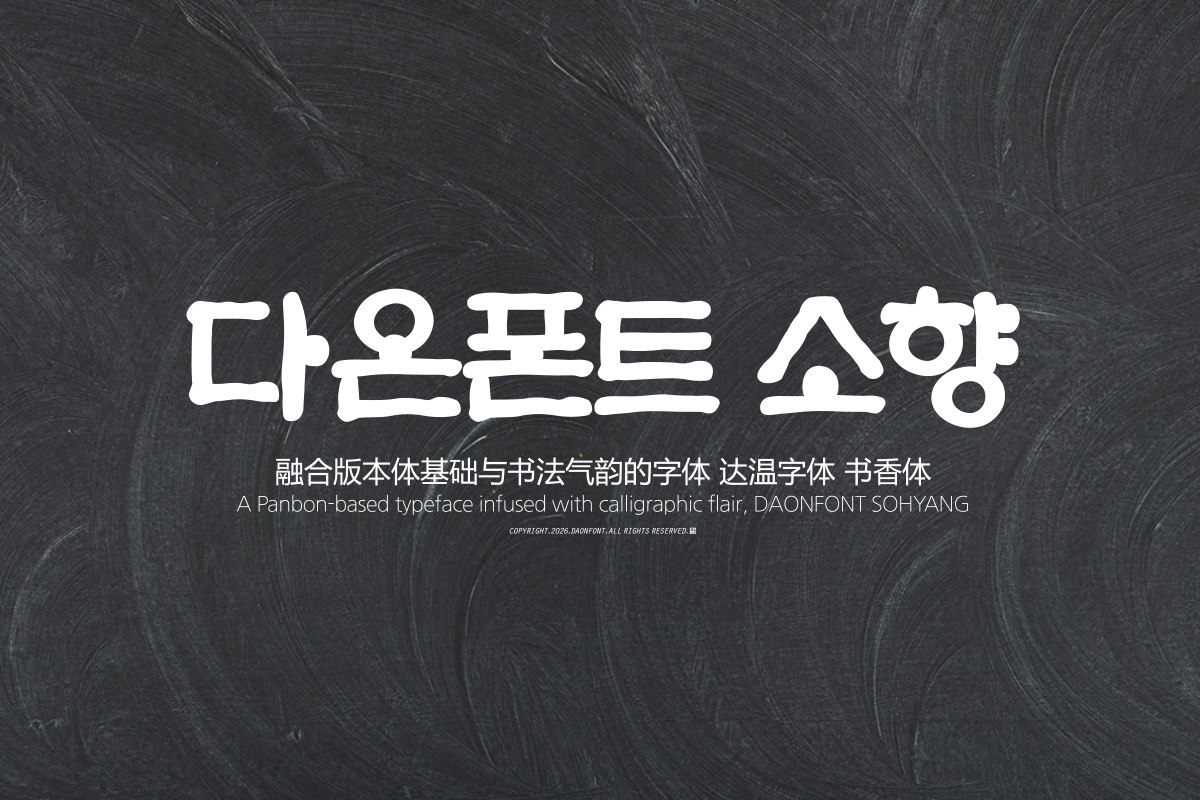
DAON SOHYANG(B)
DaonFont 'SOHYANG' is an applied Panbon font that reinterprets the traditional Panbon style in a modern way; it is a Korean typeface with a brushstroke style that conveys a warm and friendly impression.